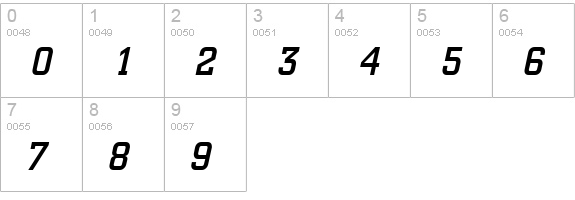
Geo 957 Italic is a distinctive, italic variant in the Geo typeface family \xE2\x80\x94 well suited to design and typography projects.
Geo 957 Italic font is a sleek and modern typeface that exudes sophistication and elegance. Its italicized design adds a touch of flair, making it perfect for projects that require a touch of stylishness. The delicate curves and sharp lines of this font create a harmonious balance that is both eye-catching and easy to read. What sets Geo 957 Italic font apart is that it is available for free download at FontsMarket.com. This means you can elevate your designs without having to spend a penny. Whether you are working on a branding project, website design, or any other creative endeavor, Geo 957 Italic font is a versatile and attractive option that will surely impress. Download it today and add a touch of sophistication to your work effortlessly.